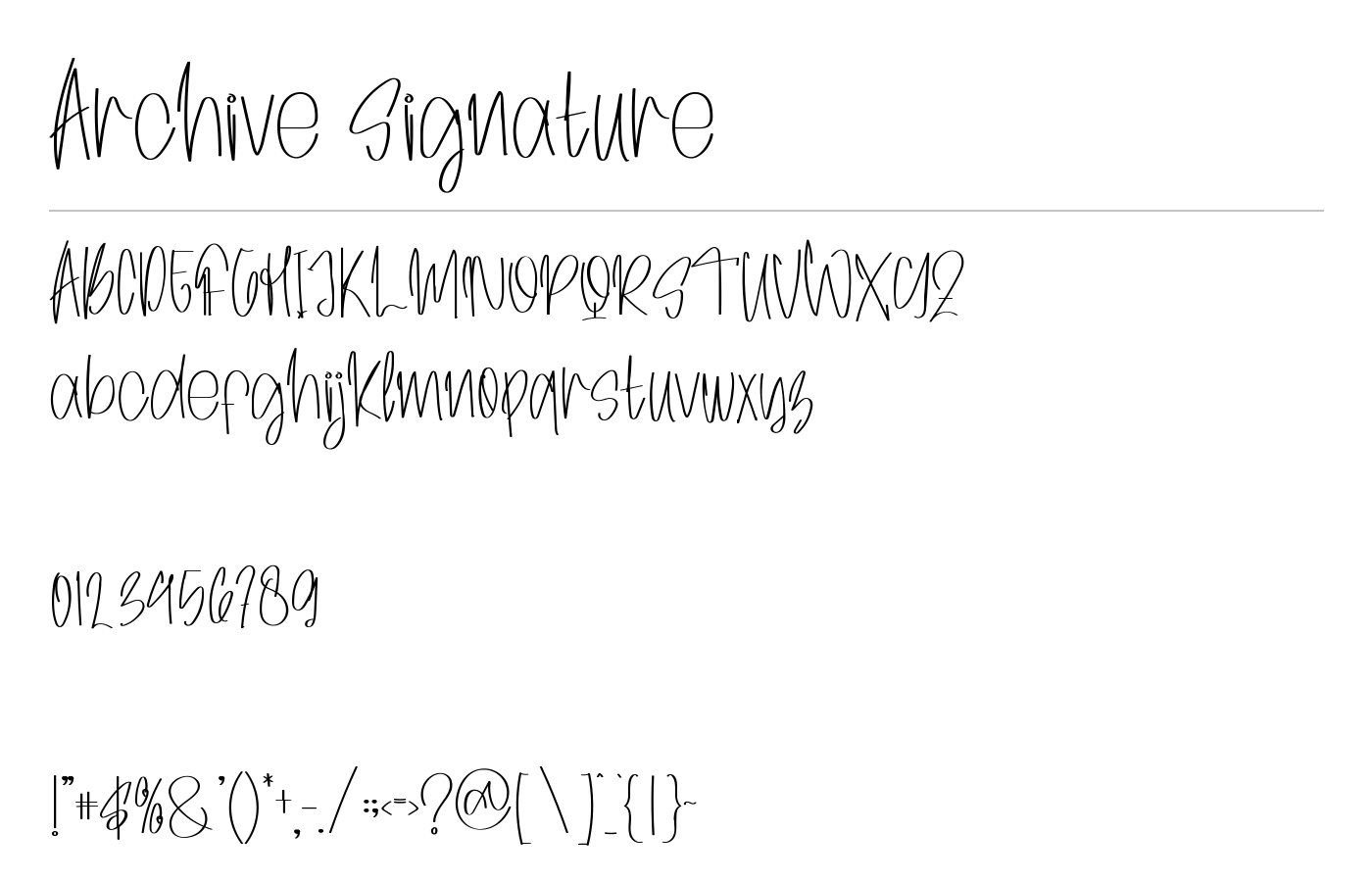
Archive Signature Font is a slender, hand-drawn script font with a playful and casual feel, featuring tall, narrow letterforms and delicate, irregular strokes. Its airy and quirky character makes it ideal for creative projects, personal branding, and contemporary designs that seek a friendly, handwritten touch. This font works best in logos, invitations, and social media graphics where a unique, informal style stands out.
Archive Signature Font